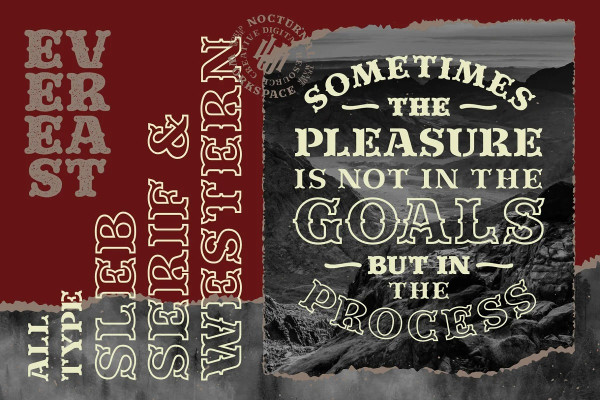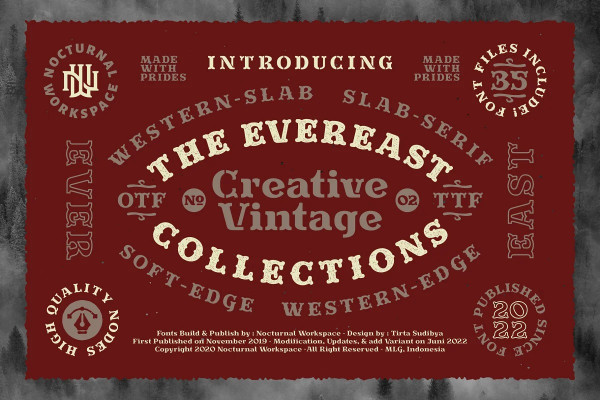
Evereast Soft Edge Font
Evereast Soft Edge Font, The beta version of the evereast font has been published since 2020. At first this font was just a learning project from the 2nd type of font and because we saw the enthusiasm of the downloader, we developed it